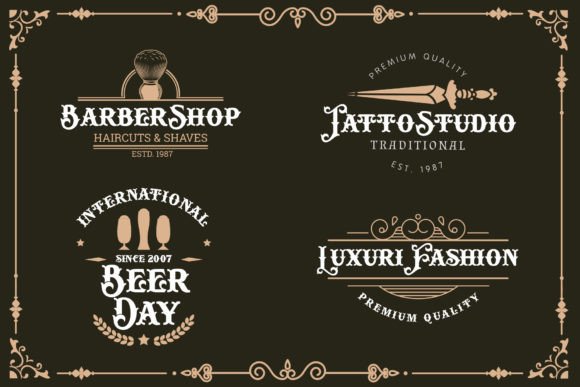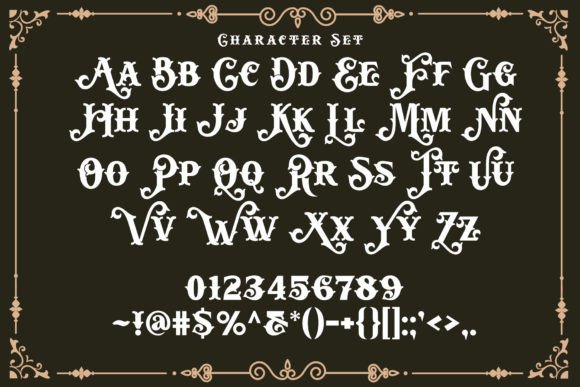
Introduction to Rantser Font Font
Fonts play a crucial role in design, and the Rantser Font font is a typeface that brings both character and versatility to any project. Whether you’re working on a branding project, a website, or a print design, the Rantser Font font offers a unique style that can elevate your work.
Make your designs look memorable, vintage, and classy with the Rantser Victorian typeface.
Itβs an easy way to bring old memories into your documents, posters, logos, and more A perfect choice for a classical style.
Key Features of Rantser Font Font
Why Choose Rantser Font Font?
The Rantser Font font is more than just a typeface β it’s a design tool that helps you communicate your message with style and clarity. Its unique character set and versatile design make it suitable for a wide range of applications, from elegant invitations to bold headlines.
With its carefully crafted letterforms and balanced proportions, the Rantser Font font ensures readability and visual appeal across all mediums.
What makes Rantser Font font special?
The Rantser Font font stands out with its unique design, exceptional readability, and versatility across various design applications.